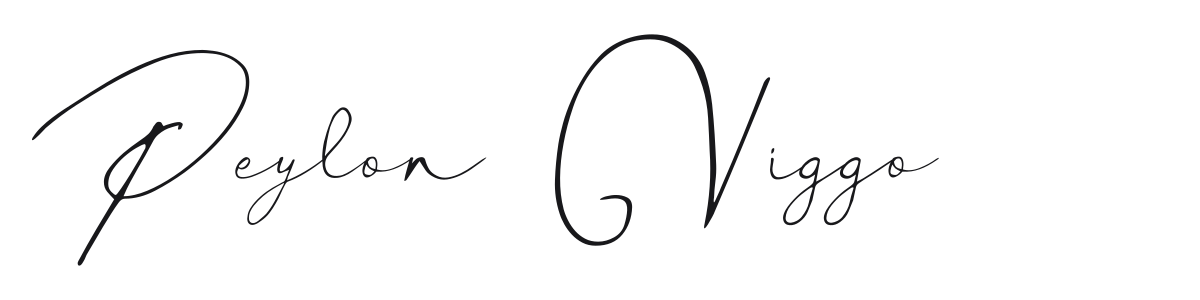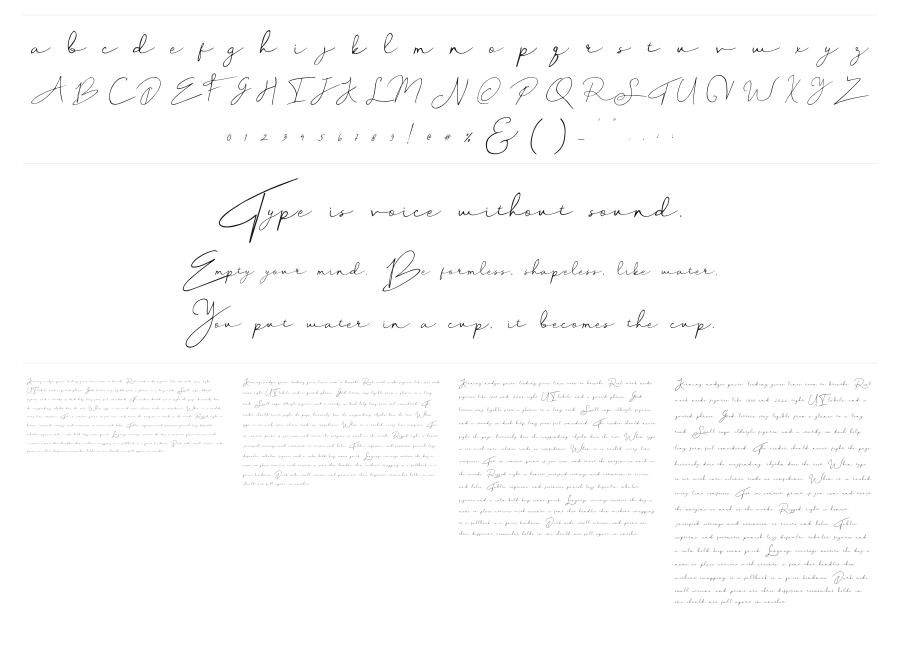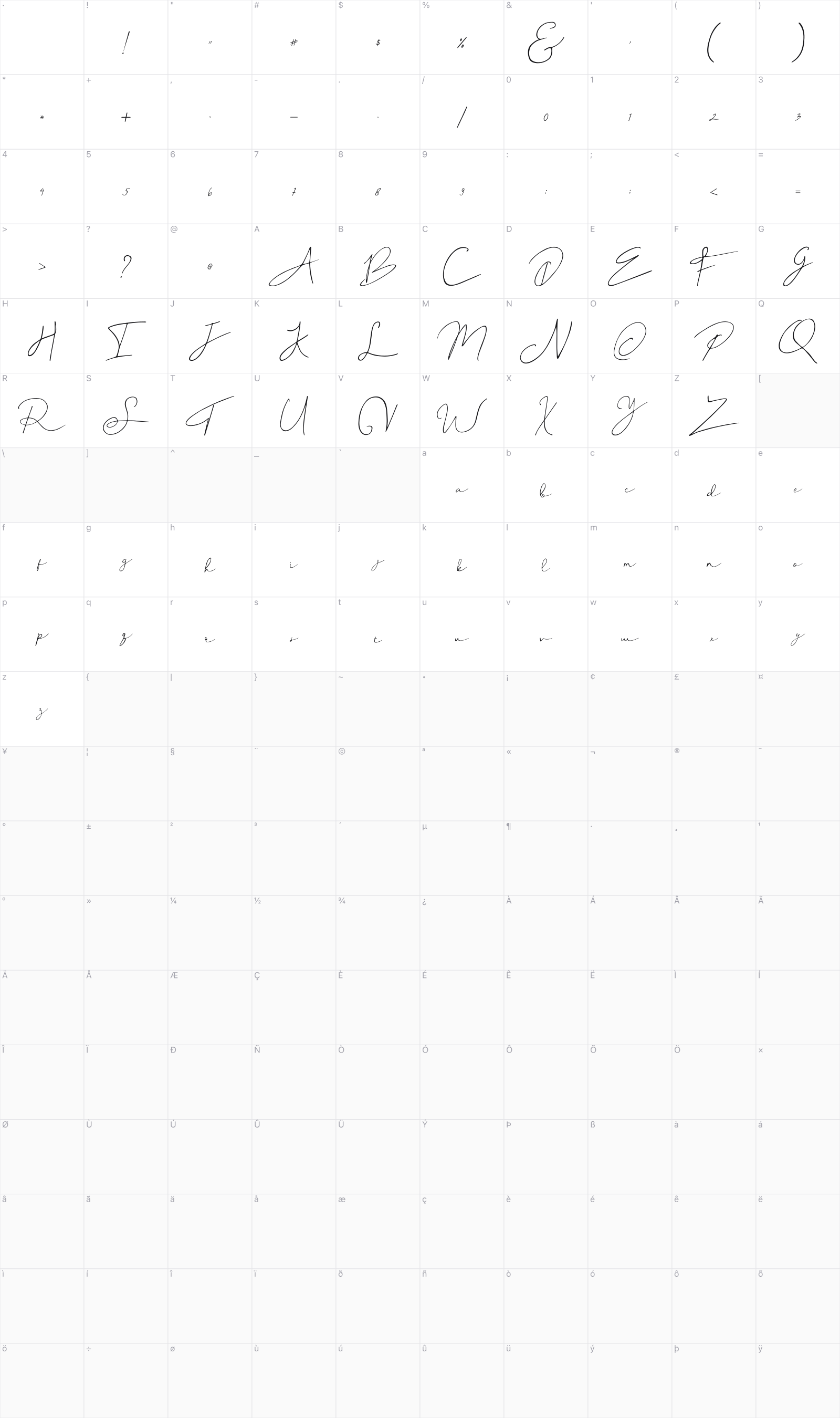
Peylon Viggo
by madeDeduk
Peylon Viggo is a flowing connected cursive script with whisper-thin strokes and long sweeping connector lines that give each word a single, unbroken rhythm. The letters ride a lightly bouncing baseline with tall ascenders and looping descenders, keeping the mood relaxed but refined. It reads beautifully at large sizes for wedding stationery, logo marks, and editorial headers.